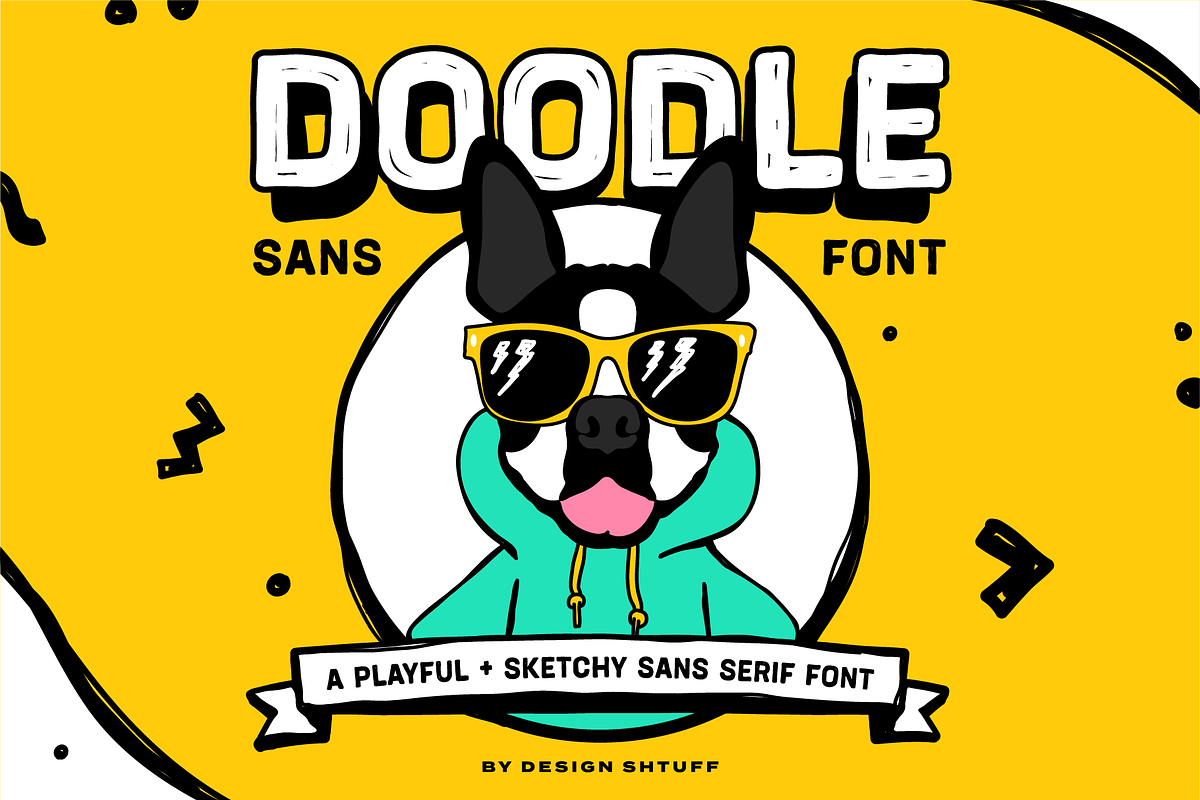
The DOODLE SANS FONT + EXTRA GRAPHICS Free Download is a fun and creative typeface designed to add a playful touch to any design project. Featuring a modern sans-serif style with a hand-drawn, doodle-inspired look, this font is perfect for casual branding, social media posts, children's designs, and more. It comes with additional graphics to give your projects even more personality and flair.
DOODLE SANS FONT + EXTRA GRAPHICS Free Download is ideal for designers looking for a whimsical, unique font paired with extra graphic elements to make their projects stand out. Whether you're designing for fun, casual events or creating playful illustrations, this font and its extras will bring your designs to life. Download it today and let your creativity flow!